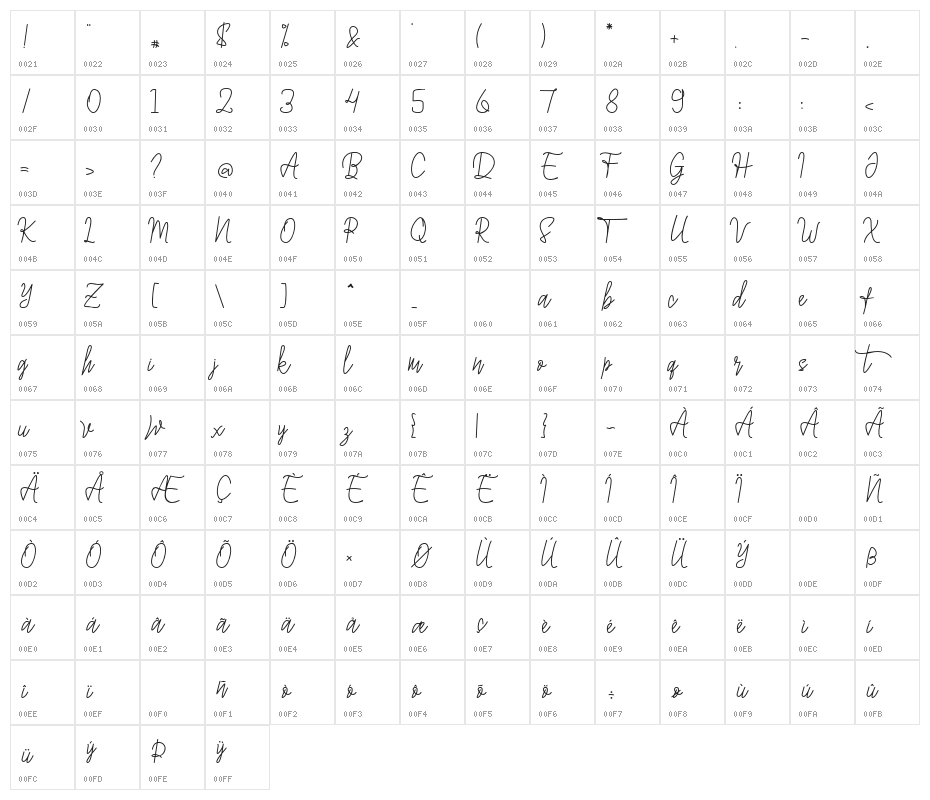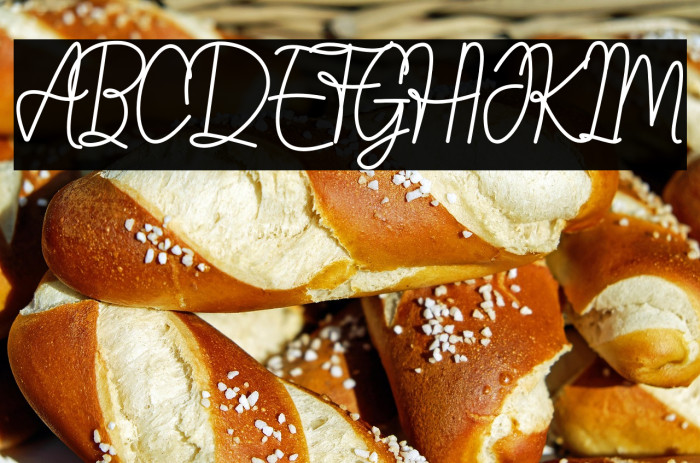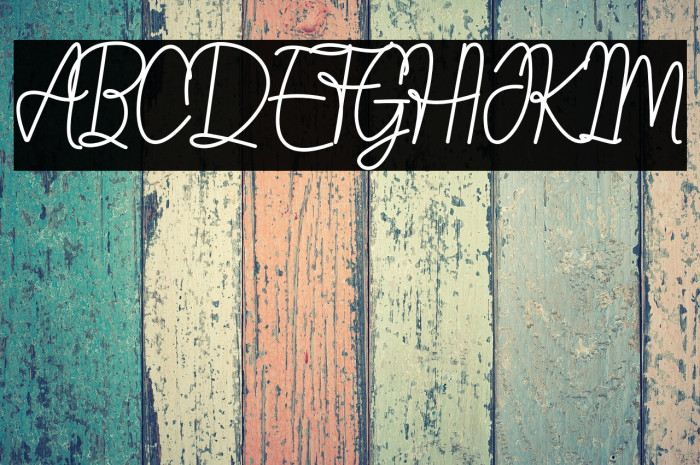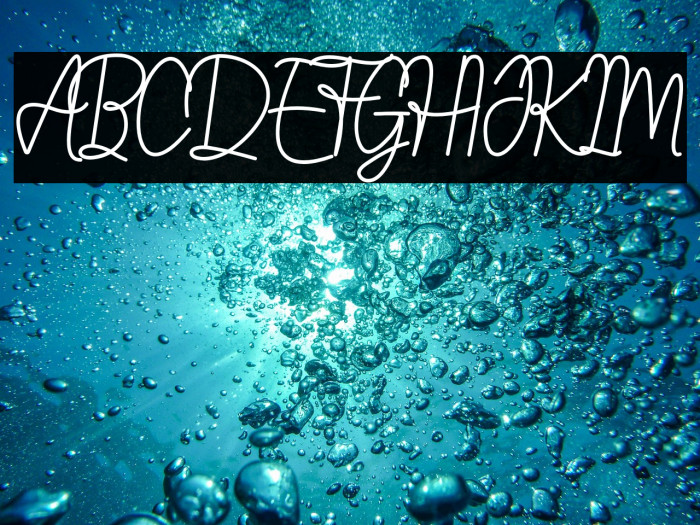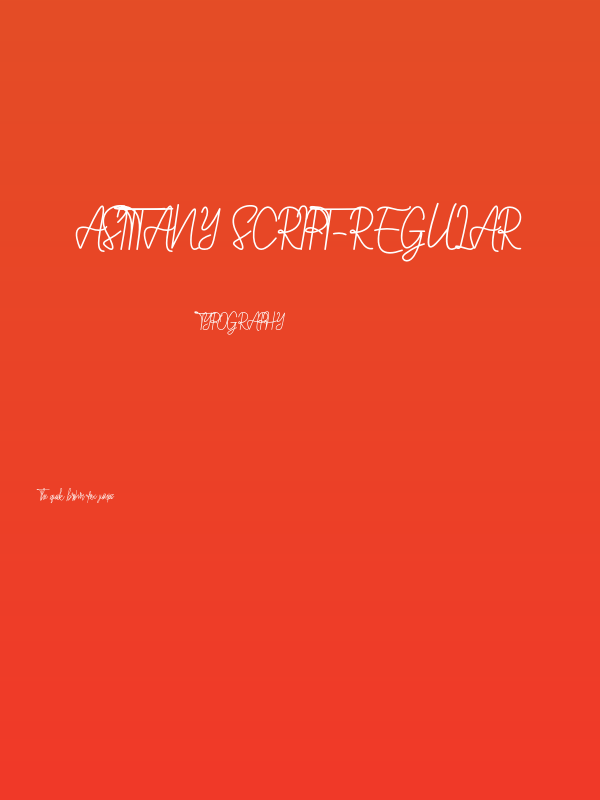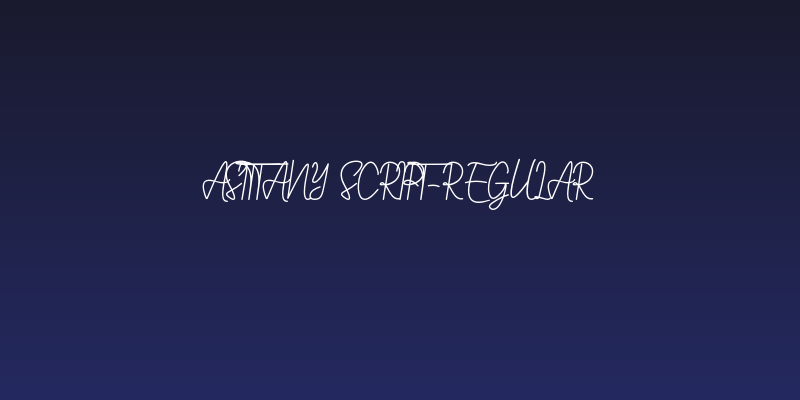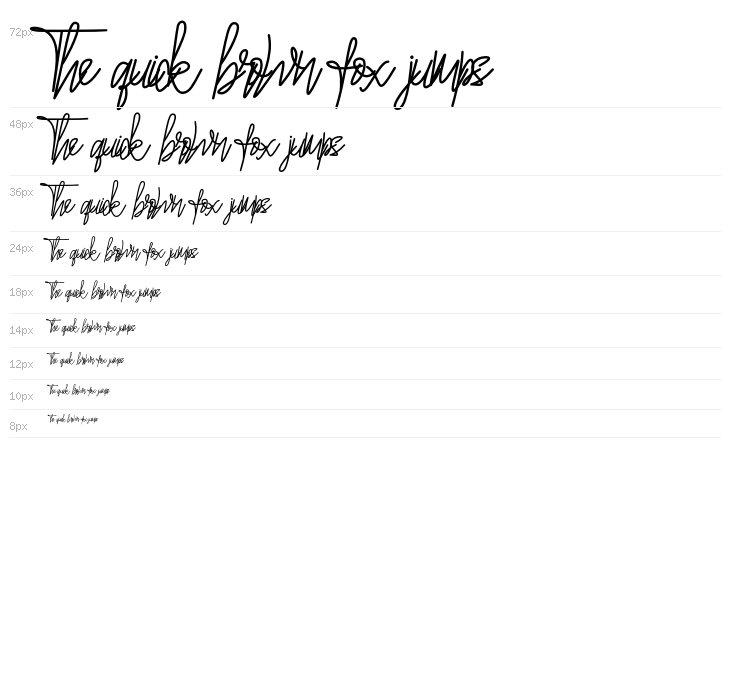
Asittany Script-Regular Font
Asittany Script-Regular Description
This font features an elegant and flowing script style, characterized by its smooth, continuous strokes that mimic the fluidity of handwriting. The uppercase letters are tall and slightly narrow, with graceful loops and curves that add a touch of sophistication. The lowercase letters maintain a consistent flow, connecting seamlessly to create a cohesive look. Numbers and special characters follow the same script style, ensuring uniformity across all elements. The overall appearance is both stylish and legible, making it suitable for a variety of design applications.
| Overall Style | Elegant |
| Use Case | Logos, Invitations, Decorative text |
| Proposed Projects | Ideal for wedding invitations, greeting cards, branding projects, and elegant packaging designs. |